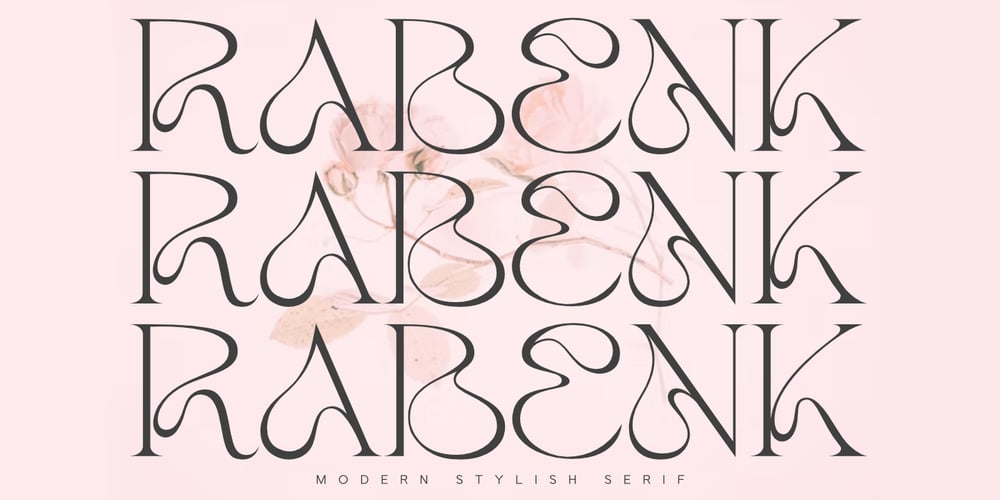
Rabenk Font Family was designed by Saiful Anwar and published by Sealoung. Rabenk contains 1 styles and family package options. Rabenk is a fun quirky look serif. With a modern look, it looks perfect when paired with conventional serif/sans serifs. It can be used for mastheads, posters, business identities and just about anything.Use this font to beautify your designs and make your work look more beautiful.